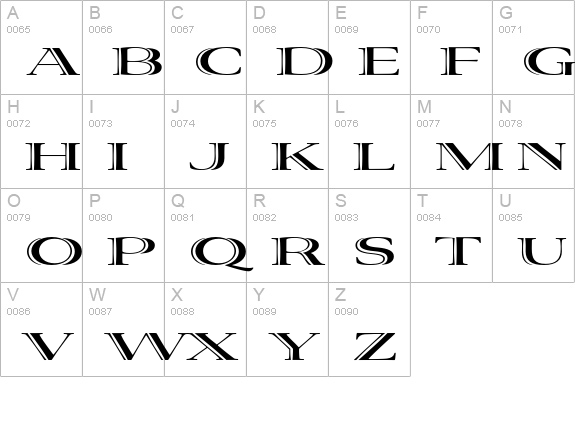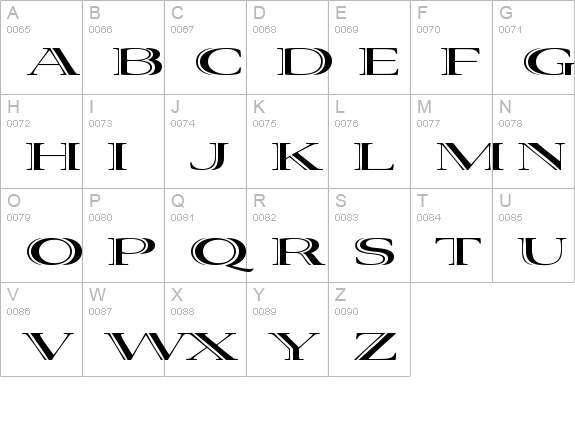
Viva Bold Extra Extended Font Details
Viva Bold Extra Extended is a strong, high-contrast, extended-width variant in the Viva typeface family \xE2\x80\x94 well suited to headlines, attention-grabbing titles, and strong calls-to-action.
Viva Bold Extra Extended font is a striking and powerful typeface that commands attention with its bold and extended letterforms. This font exudes confidence and strength, making it perfect for headlines, titles, and branding projects that require a bold statement. With its extra extended width, Viva Bold Extra Extended font creates a bold and impactful visual presence, allowing your message to stand out from the crowd. The thick and substantial strokes of each character give a sense of stability and solidity, while the extended letterforms add a touch of uniqueness and modernity. This font is not only visually appealing but also highly legible, ensuring that your message is conveyed effectively. Its clean and well-defined letterforms make it easy to read, even at smaller sizes. Whether it's for print or digital design, Viva Bold Extra Extended font guarantees a clear and crisp visual experience. What's even better is that Viva Bold Extra Extended font is available for free download at FontsMarket.com. You can freely access this powerful and eye-catching font, making it a valuable addition to your font library without any cost. FontsMarket.com offers a wide range of fonts, and Viva Bold Extra Extended font is just one of the many options available to you. So, if you're looking for a bold and impactful font that will make your design projects shine, look no further than Viva Bold Extra Extended font. Its free availability at FontsMarket.com makes it even more enticing to incorporate into your creative endeavors. Download it now and let your creativity flourish with this stunning and freely accessible typeface.